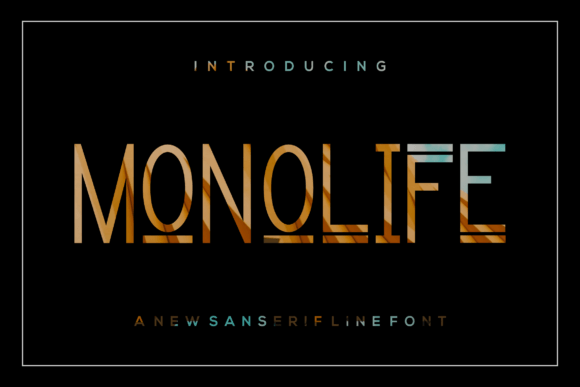
Unleash the Power of Persuasion with Monolife Font: A Sans Serif Masterpiece for Business Presentations
In the realm of business presentations, captivating visuals hold the key to leaving a lasting impression. Meet Monolife Font, the ultimate sans serif font that transforms your slides into persuasive masterpieces. Its clean lines, elegant curves, and modern aesthetic elevate your content, ensuring your audience remains engaged and captivated from start to finish.
Step into the spotlight with Monolife Font, a sans serif font carefully crafted to amplify the impact of your business presentations. With its crisp and legible letterforms, this font ensures that your words shine, allowing your message to resonate with clarity and authority. The subtle yet striking details of Monolife Font lend an air of sophistication, setting your presentations apart from the ordinary.
Dive into the depths of Monolife Font's versatility and discover a world of creative possibilities. Whether you're crafting impactful data visualizations, designing persuasive infographics, or narrating your success stories through compelling slides, Monolife Font effortlessly adapts to your vision. Its ability to convey both professionalism and approachability makes it the perfect choice for a wide range of business presentations.
With Monolife Font as your ally, crafting presentations that leave a lasting impression becomes a seamless experience. Its intuitive design allows you to effortlessly create visually stunning slides, saving you time and energy. Unleash your creativity and let Monolife Font elevate your business presentations to new heights of excellence.